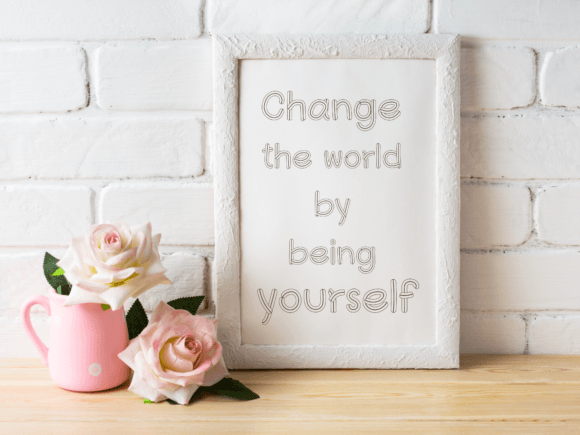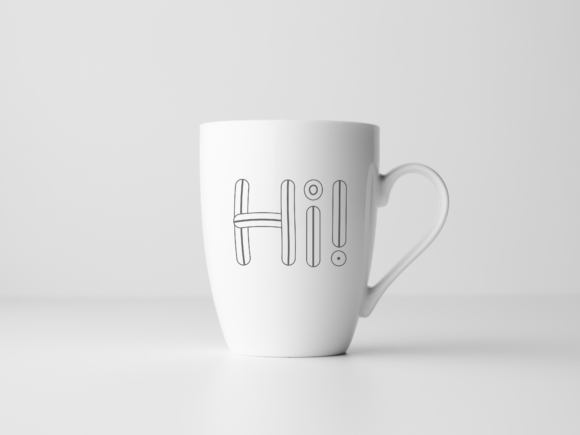
Introduction to Piipo Font
Have you ever been working on a creative project, and suddenly, the perfect font pops into your mind, elevating your entire design? That’s exactly what happens when you discover the Piipo Font. This playful and fun display font is the ultimate game-changer for any designer looking to add a touch of whimsy to their work.
As a valuable design resource, the Piipo Font is available for free download, making it accessible to designers of all levels. Its transparent background and high-quality design make it a versatile choice for any project, from digital graphics to print materials. Whether you’re working on a personal or professional project, the Piipo Font is sure to bring a smile to your face and a touch of creativity to your work.
- Includes a wide range of characters, including uppercase and lowercase letters, numbers, and special symbols.
- Designed with a modern aesthetic, making it perfect for contemporary creative projects.
Honest Review: Piipo Font
I recently had the chance to work with the Piipo Font, and I must say it’s been a great addition to my design resource collection. ✨ One of the things I appreciate most about this font is its clean and minimalist design, making it perfect for creative projects that require a touch of elegance.
The font comes in a variety of styles and weights, allowing me to customize my design to fit the specific needs of my project. The transparent background option also gives me the flexibility to use it as a overlay or texture, adding an extra layer of depth to my work.
While the Piipo Font is a great resource, there are a few limitations to consider: ⚠️ The font may not be suitable for projects that require bold or dramatic text, as it’s designed for more subtle and elegant applications.
Overall, I’m really impressed with the Piipo Font and would recommend it to designers looking for a high-quality, free design resource for their creative projects.
Piipo Font is a high-quality, free download design resource ideal for creative projects requiring a unique and stylish touch. Its transparent background makes it versatile for use in various applications.
Piipo Font is suitable for various design projects, including social media graphics, blog posts, and marketing materials. Its unique style makes it an excellent choice for creative and modern designs.